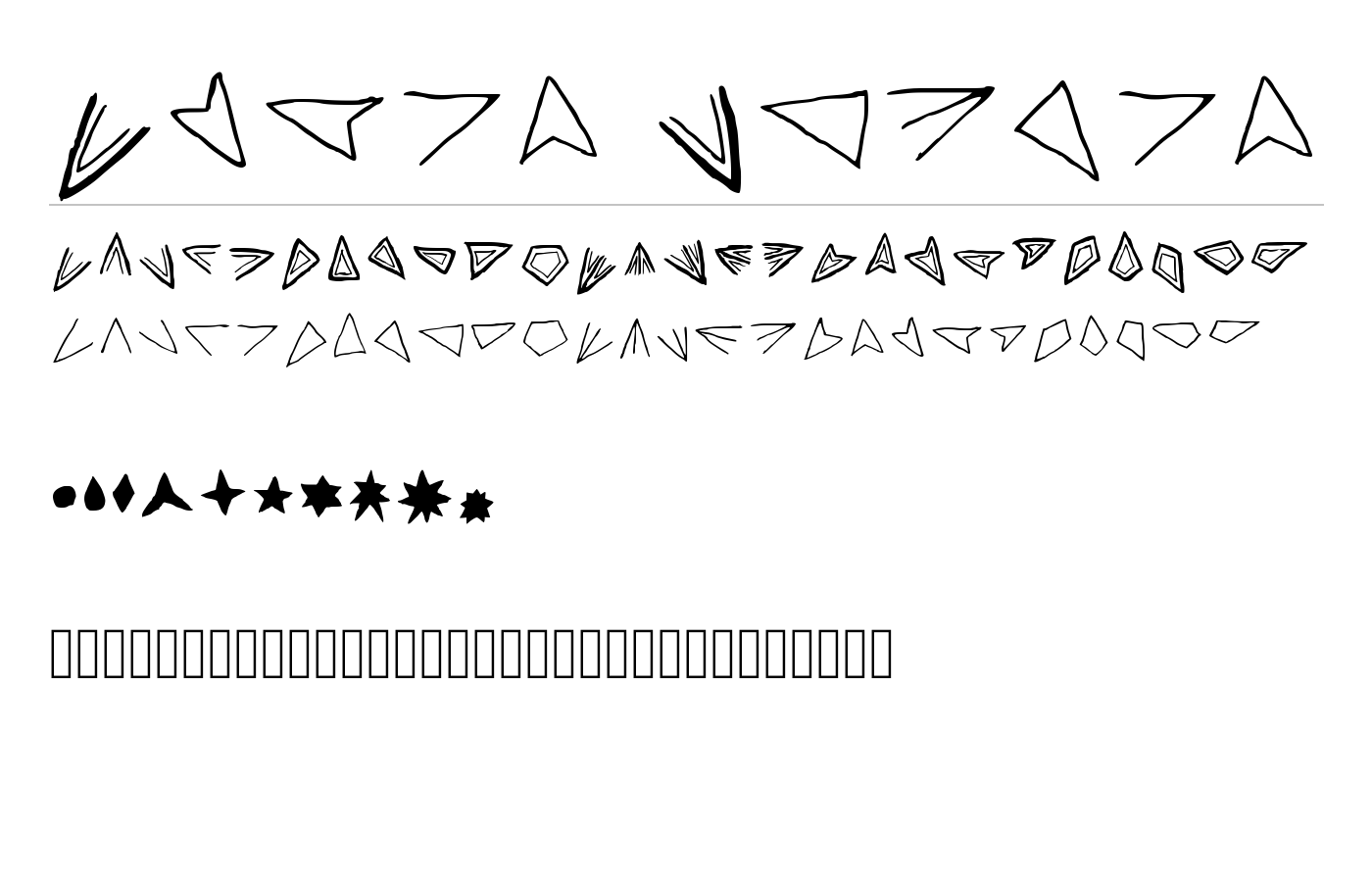
Aster Cipher is an abstract, decorative symbol font featuring irregular triangular and angular shapes with varied line weights that create a hand-drawn, cryptic feel. Its unique, non-traditional glyphs give it a mysterious and artistic personality, making it ideal for creative projects, logos, or designs needing a futuristic or coded aesthetic. This font works best as a display or accent style where visual intrigue is the primary focus rather than readability.
Aster Cipher Font